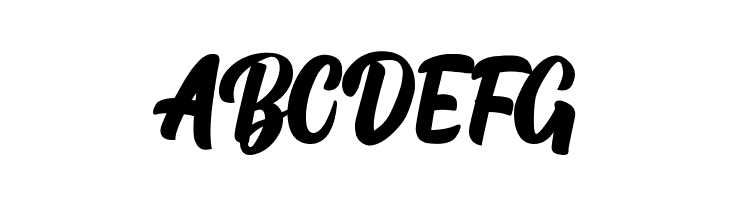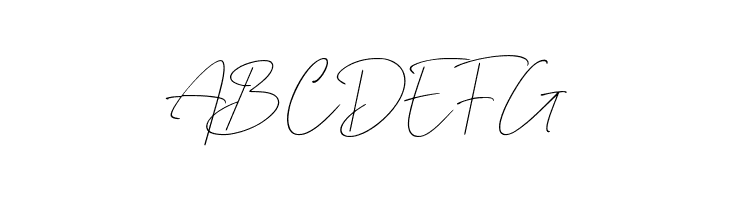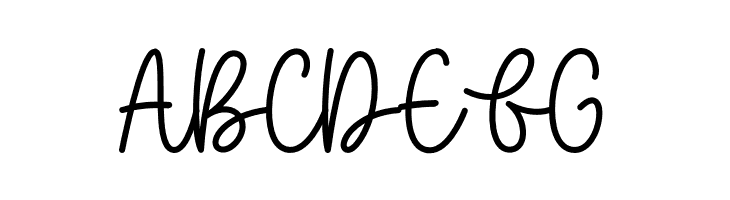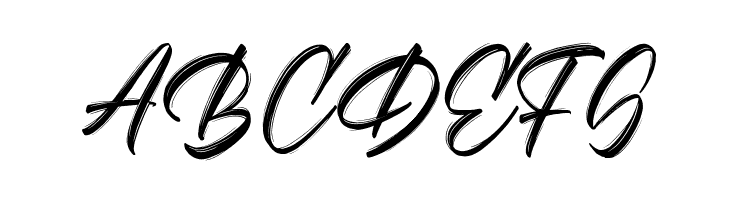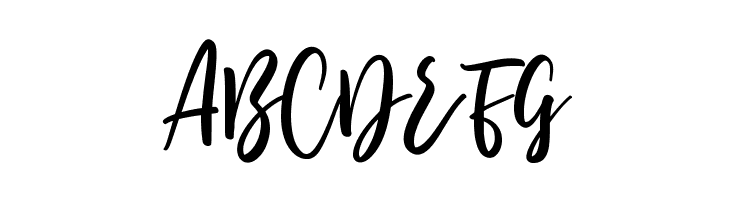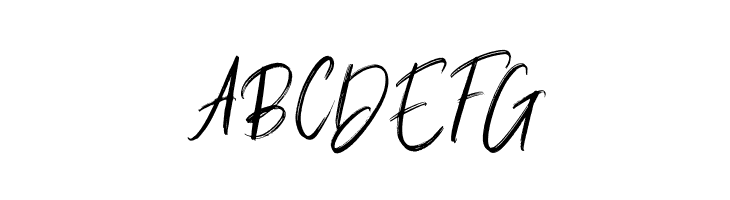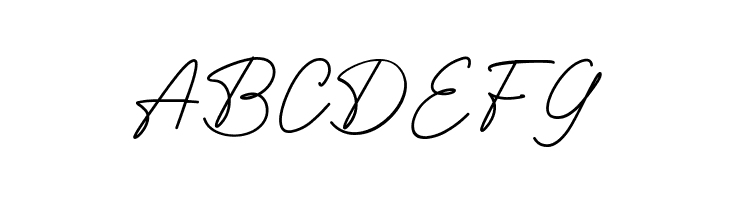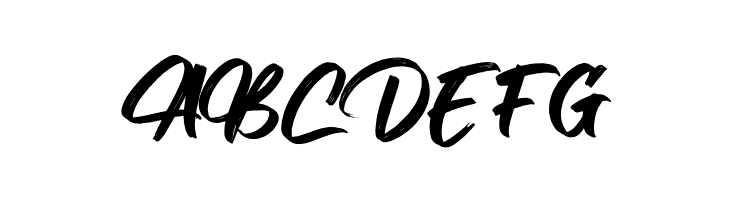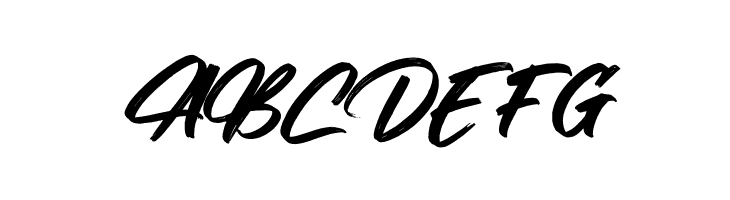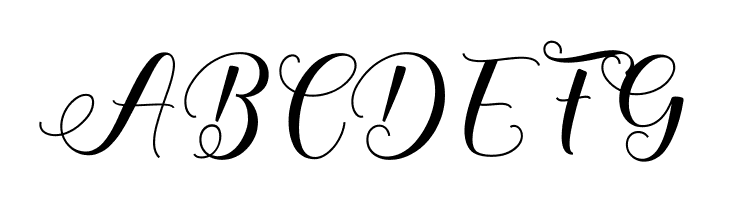
A bold, geometric font with tribal-inspired embellishments.
A bold, handwritten font with dynamic strokes and a lively style.
A fluid, cursive font with a natural handwritten style.
A fluid and elegant handwritten script font with smooth, connected letters.
A modern, rounded typeface with uniform stroke width and friendly appearance.
A modern, rounded sans-serif font with excellent readability and a friendly appearance.
A playful, handwritten font with tall, narrow letters and a modern feel.
A bold, playful handwritten font with rounded edges and a consistent weight.
A playful, casual handwritten font with smooth, rounded edges and consistent stroke thickness.
A bold, playful script font with rounded strokes and smooth curves.
A bold, playful script font with flowing, connected letters and decorative uppercase characters.
A decorative font with intricate swirls and loops, offering a vintage yet modern aesthetic.
A bold, brush-style font with dynamic strokes and artistic flair.
An elegant, cursive script font with flowing lines and graceful curves.
A dynamic and elegant script font with flowing, cursive letterforms.
A dynamic and elegant script font with fluid, slanted letterforms.
A dynamic and elegant script font with flowing, slightly slanted letterforms.
A dynamic and elegant script font with fluid letterforms and varying stroke widths.
A graceful and flowing script font with a handwritten style.
A dynamic, handwritten font with expressive, fluid strokes.
A playful, bold script font with a handwritten feel.
A lively handwritten font with fluid, cursive strokes.
A playful, flowing script font with smooth, continuous strokes and a handwritten charm.
A playful and flowing script font with a natural handwritten style.
A lively and elegant script font with flowing, connected letterforms.
An elegant script font with high contrast and ornate flourishes.
A graceful script font with flowing, cursive letters and a sophisticated, handwritten style.
A bold, brush script font with dynamic, hand-painted strokes.
A bold, energetic script font with fluid, interconnected strokes.
A graceful and elegant cursive font with flowing, intricate characters.
A whimsical, artistic handwritten font with flowing, interconnected letterforms.
An elegant script font with flowing cursive style and intricate swashes.
A bold, cursive script font with dynamic, flowing strokes and elegant connections.
A bold, expressive brush-style font with textured, dynamic strokes.
A bold, expressive brush script font with textured, hand-painted strokes.